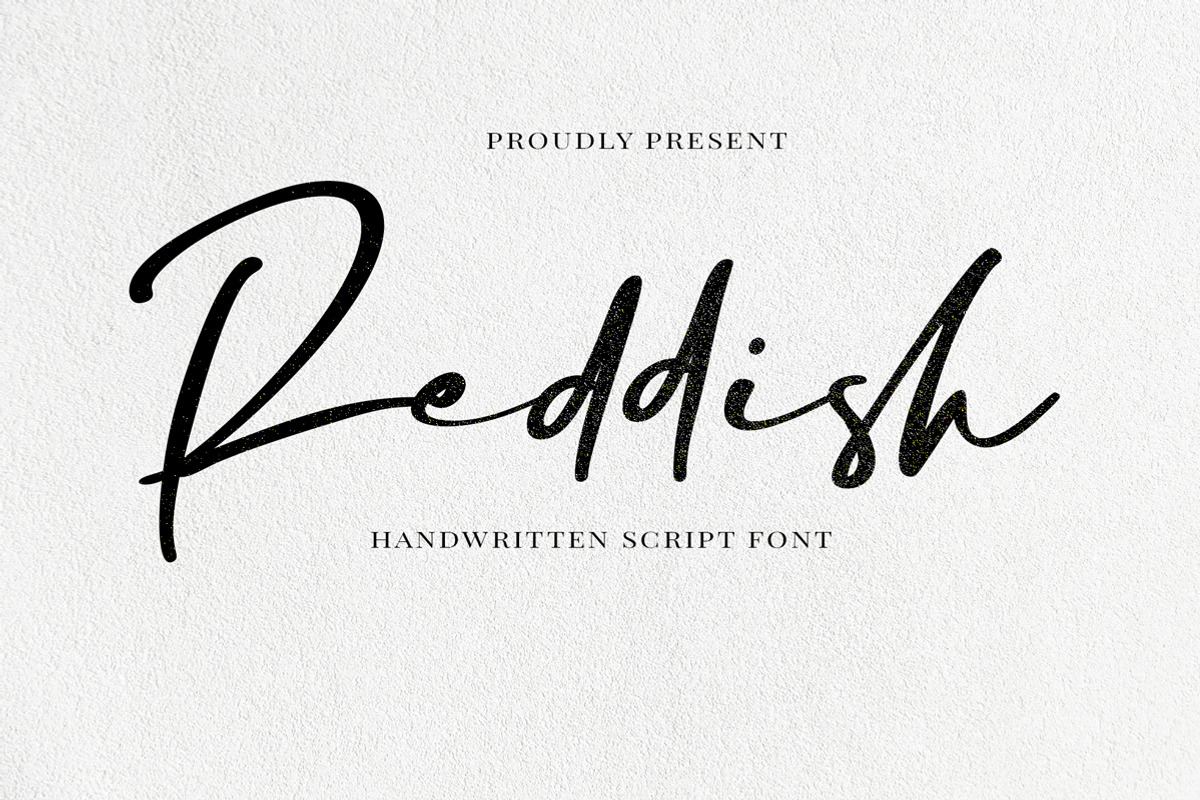
Reddish Elegant Font Free Download is a refined and stylish script typeface that adds a touch of sophistication and elegance to any design. Perfect for logos, invitations, branding, and more, Reddish’s flowing curves and smooth letterforms create a graceful, timeless aesthetic. Ideal for high-end projects and luxury brands, this elegant font is perfect for both digital and print designs that require a sophisticated feel.